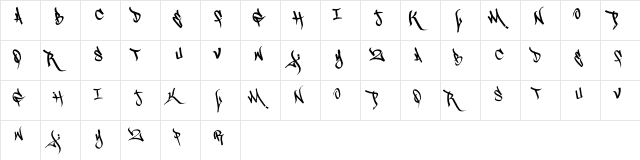
Scrawler3_free Font Preview
Design Context for Scrawler3_free Typeface
Scrawler3_free is a composed and adaptable typeface that performs quietly and consistently across a wide range of design contexts.